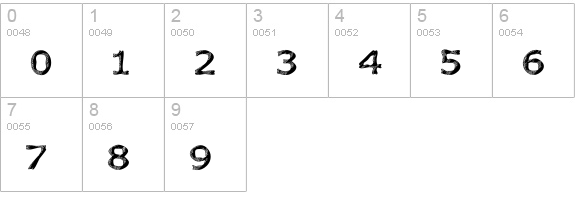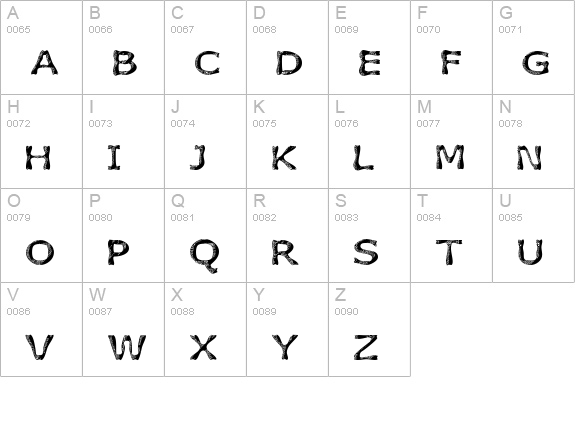
Heavy Texture is a heavy, high-impact variant in the Heavy typeface family \xE2\x80\x94 well suited to high-impact headlines, posters, and display advertising.
Introducing Heavy Texture, a striking and bold font that will make a powerful statement in any design project. With its unique and intricate texture, this font adds depth and character to your text, creating an eye-catching visual impact that is hard to ignore. The Heavy Texture font is perfect for those looking to make a bold statement with their typography. Its thick and solid letterforms exude strength and confidence, while the subtle texture adds a touch of ruggedness and authenticity. Whether you're designing a logo, poster, or any other creative project, Heavy Texture will instantly elevate your design to new heights. What sets Heavy Texture apart is not only its stunning visual appeal, but also the fact that it is free. That's right, you can download this incredible font for absolutely no cost at FontsMarket.com. This means that you can unleash your creativity without any financial constraints, allowing you to experiment and explore the endless possibilities that Heavy Texture has to offer. With its wide range of characters and extensive language support, Heavy Texture is versatile and adaptable to any design need. Its strong presence and distinct personality make it ideal for headlines, titles, and impactful quotes. It also works seamlessly in both digital and print formats, ensuring that your design will look amazing across various mediums. So why wait? Download Heavy Texture for free today at FontsMarket.com and add a touch of boldness and texture to your next design project. Whether you're a professional designer or a creative enthusiast, this font will become an invaluable asset in your typographic arsenal. Stand out from the crowd and make a lasting impression with the captivating Heavy Texture font.